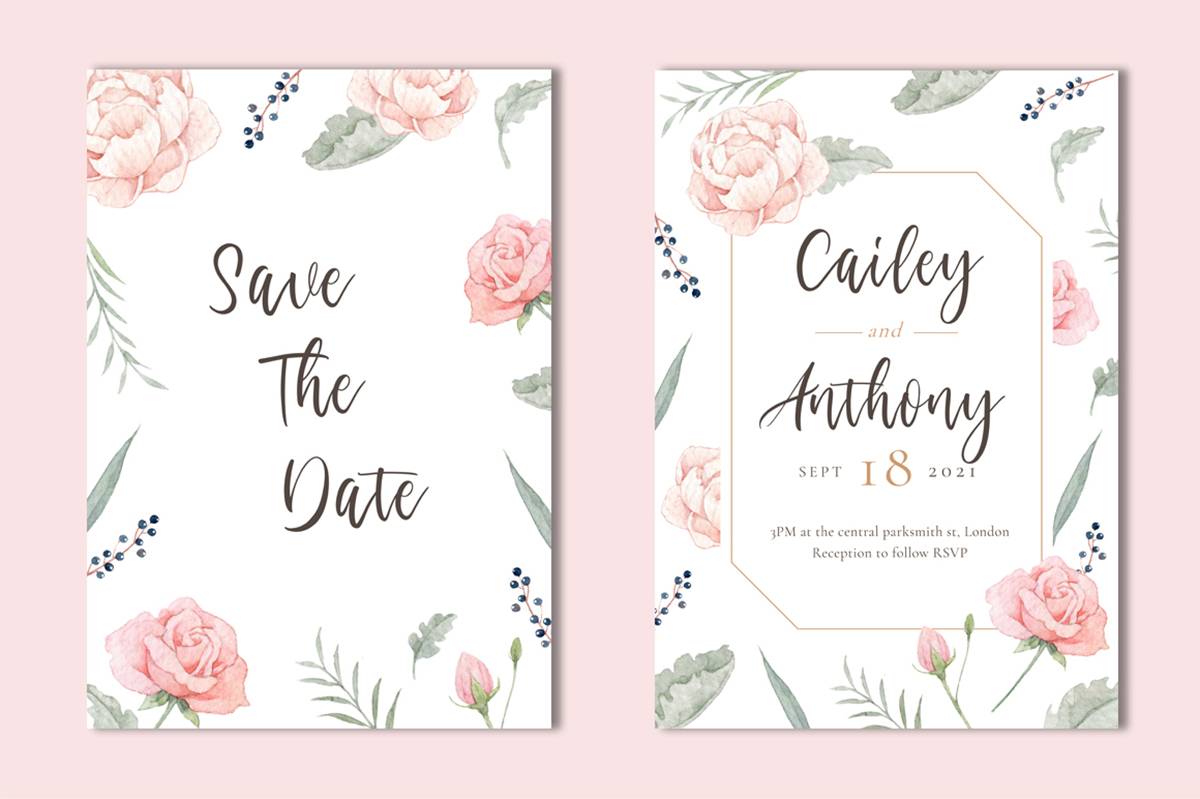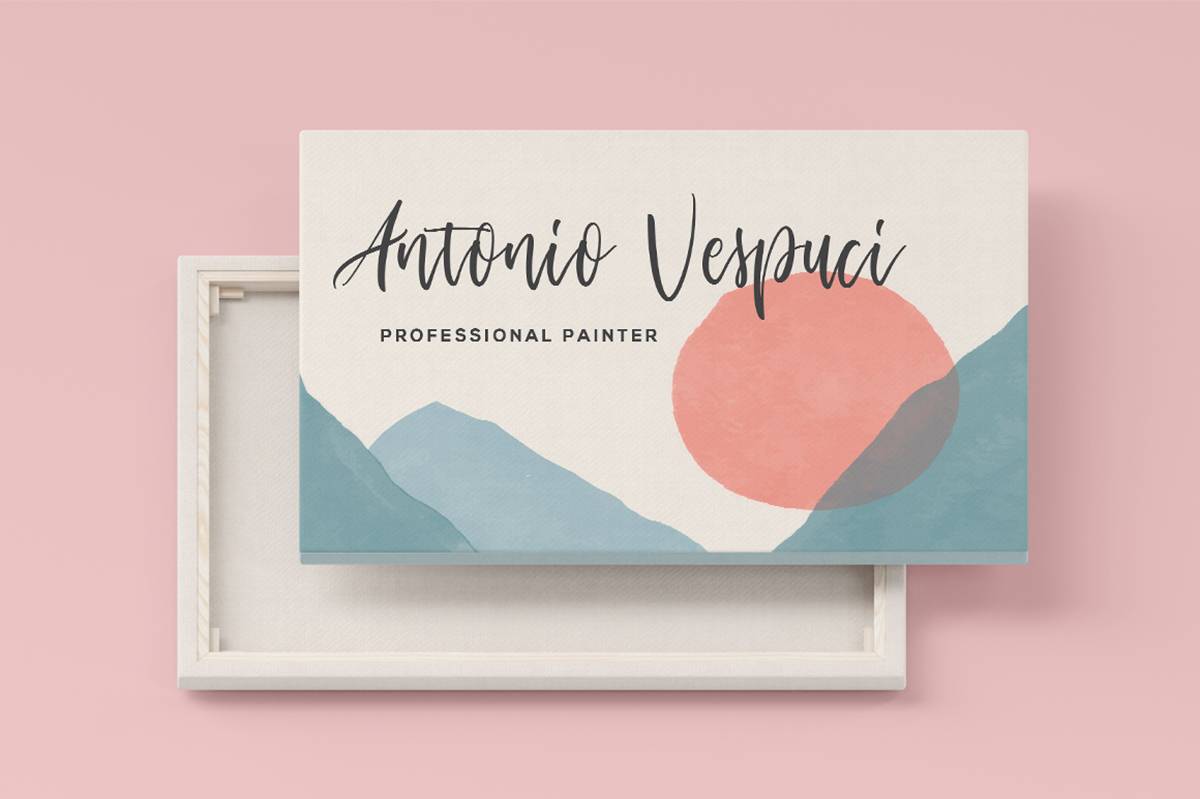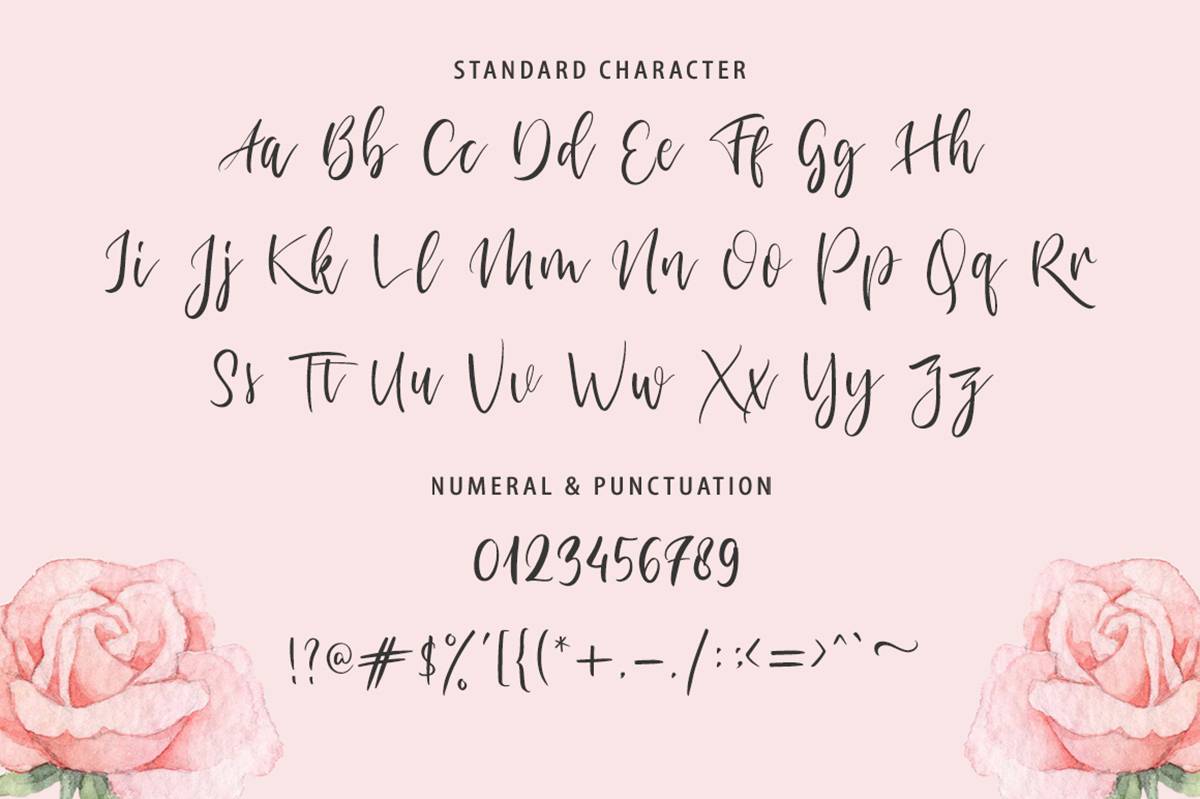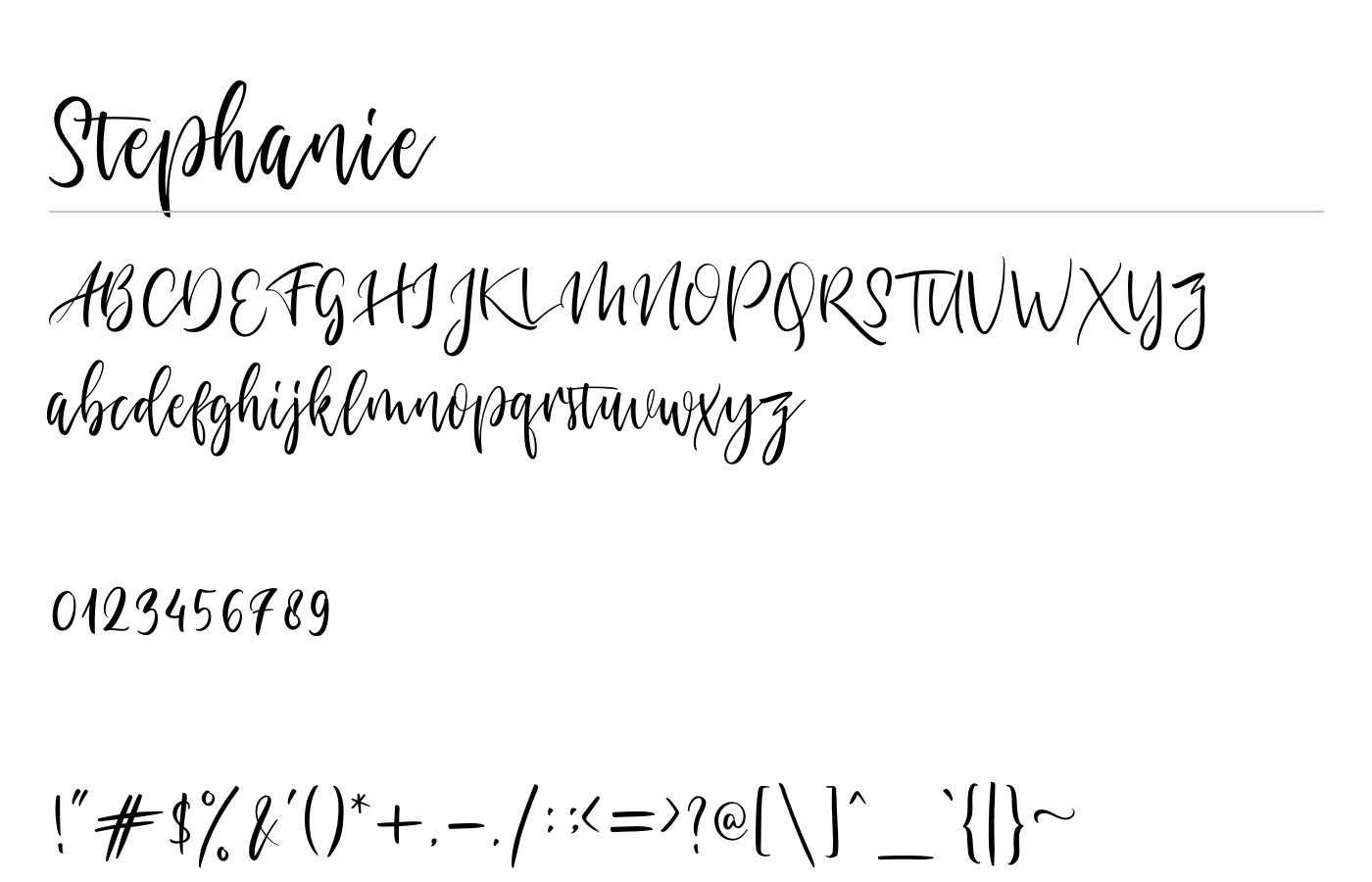
Stephanie Script Font is a delicate and elegant handwritten typeface with a smooth, flowing style that captures a personal and artistic feel. Its slender strokes and slightly varied letterforms give it a lively, modern touch, making it perfect for creative projects, invitations, and branding that require a sophisticated yet approachable look. This font works wonderfully for adding a graceful, feminine charm to logos, headlines, and decorative text.
Stephanie Script Font
About Stephanie Script Font